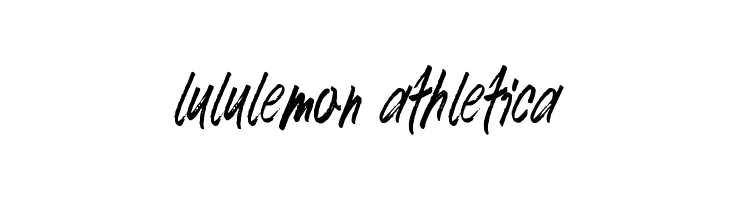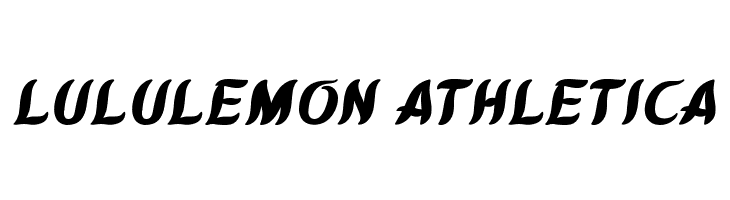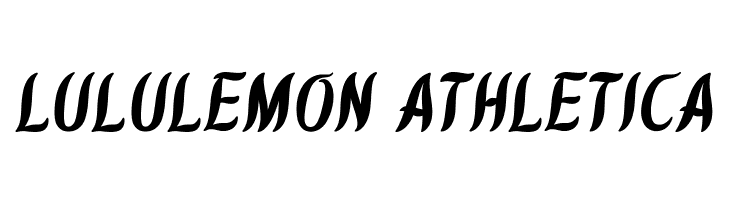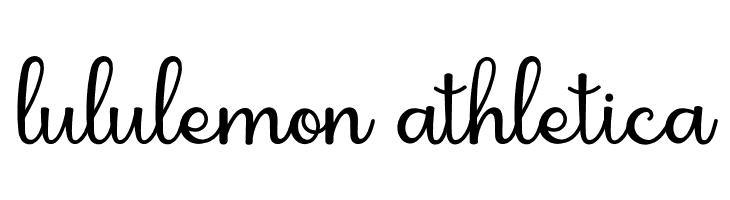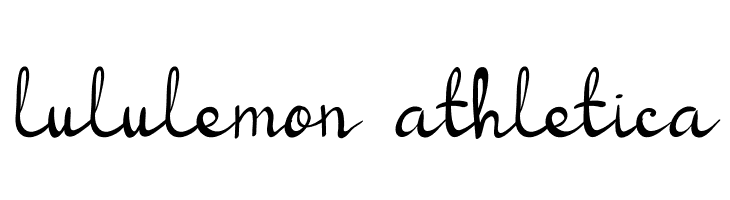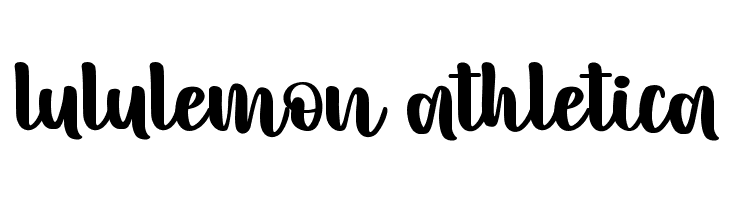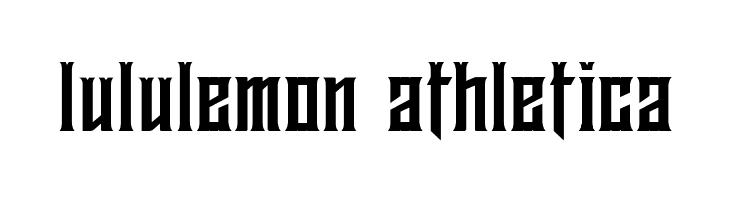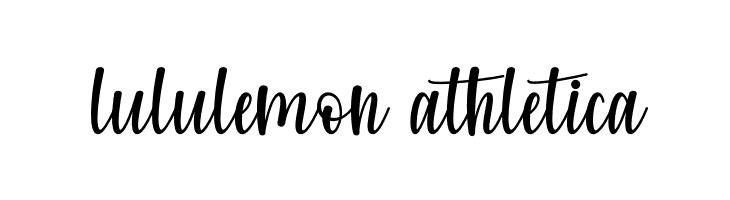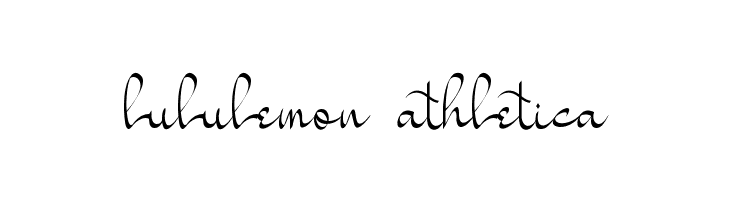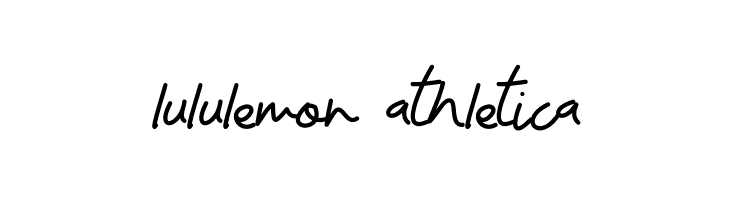
A playful, casual handwritten font with smooth, organic strokes.
A bold, geometric font with strong, uniform strokes and high legibility.
A bold, geometric sans-serif font with a striking outline effect.
A modern sans-serif font with clean lines and balanced proportions.
A modern sans-serif font with a geometric and clean design.
A bold, modern sans-serif font with clean lines and strong presence.
A modern, light sans-serif font with clean lines and balanced proportions.
A modern sans-serif font with a clean, balanced design and versatile character set.
A playful, irregular handwritten font with quirky letterforms.
A graceful calligraphy font with flowing, decorative script.
A dynamic cursive script font with flowing, connected strokes.
A playful, irregular handwritten font with unique character quirks.
A bold, playful font with a cartoonish and whimsical style.
A bold, playful font with a cartoonish style and exaggerated curves.
A bold, geometric font with sharp angles and a dynamic style.
A bold, geometric font with sharp angles and a modern edge.
A bold, geometric font with sharp angles and a modern style.
A playful, hand-drawn font with a whimsical and friendly style.
A bold, rounded font with smooth curves and a modern, friendly aesthetic.
A bold, rounded font with smooth curves and uniform strokes.
A playful handwritten font with bold strokes and medium contrast.
A bold, playful handwritten font with rounded characters.
A classic serif font with elegant strokes and balanced proportions.
A modern serif font with elegant, refined letterforms and moderate contrast.
Ornamental icon font featuring stylized religious female portraits.
A bold, playful font with a zigzag pattern through each character.
A rugged, organic font with a wild, hand-drawn appearance.
A bold, playful handwritten font with a brush-like style.
A bold, playful font with a hand-drawn, adventurous style.
A bold, playful font with exaggerated curves and a hand-drawn feel.
A bold, textured brush script font with a dynamic and artistic style.